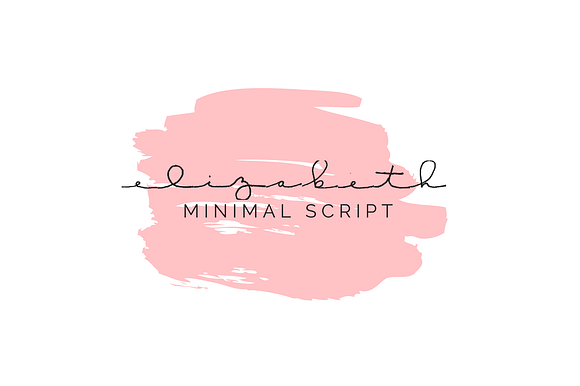
Elizabeth Minimal Font
This is a hand-drawn font based on the standard minimal cursive used in Jihi Elephant Bullet Journals.
Why Elizabeth Minimal Font is worth a look
Elizabeth Minimal Font by ElizabethJournals fits naturally into Branding, posters, packaging, typography.